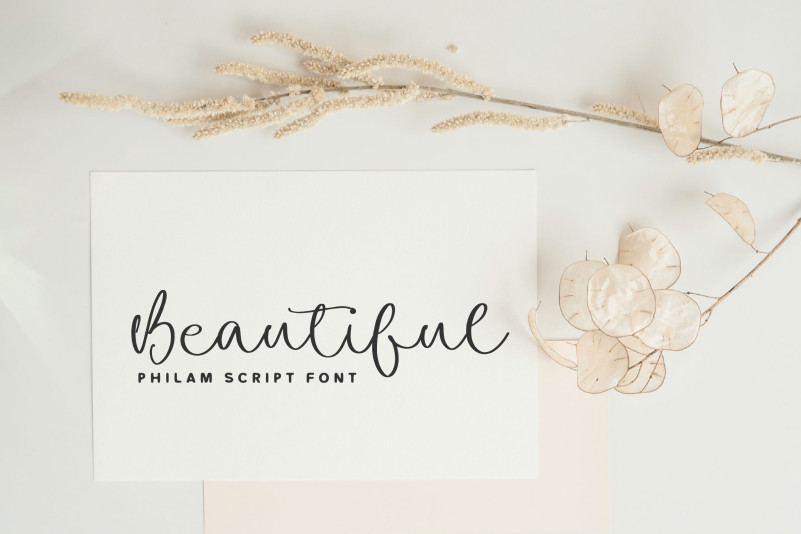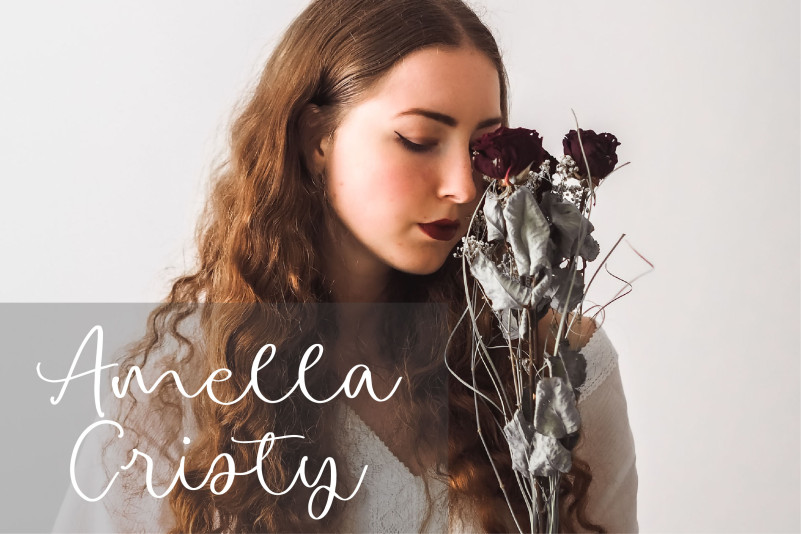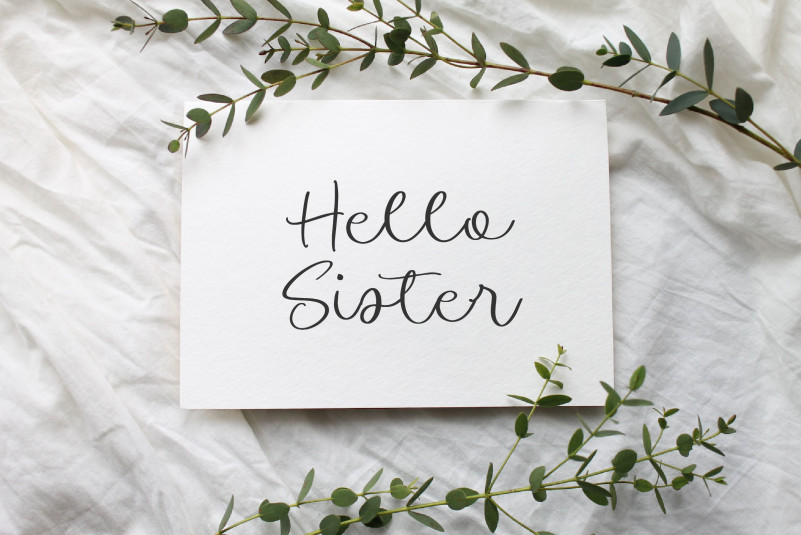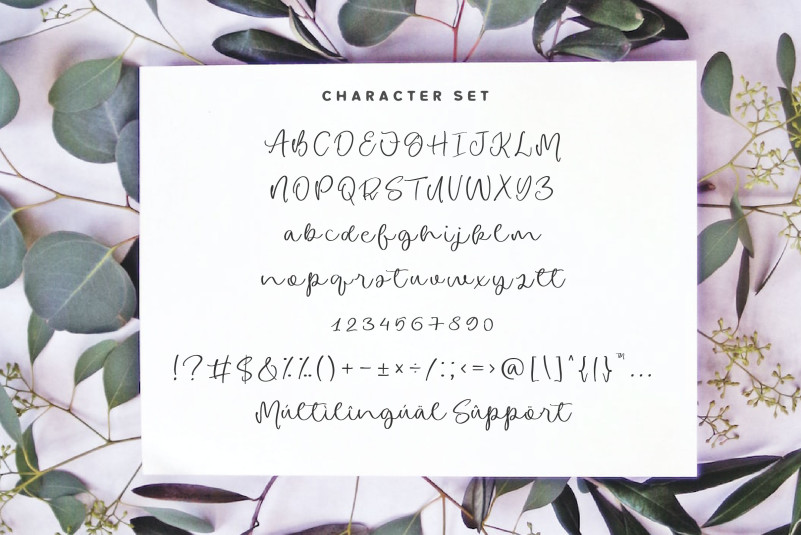
Philam Font
Philam Script Font is a true showstopper, with its stunning and eye-catching design. The letters are beautifully crafted, with a flowing and smooth style that exudes elegance and charm. Its timeless appeal makes it the perfect choice for any project that demands a touch of sophistication and allure.
– Uppercase, Lowercase, Numeral & Punctuation
– Alternate Letters, Ligature & Swash/Tail